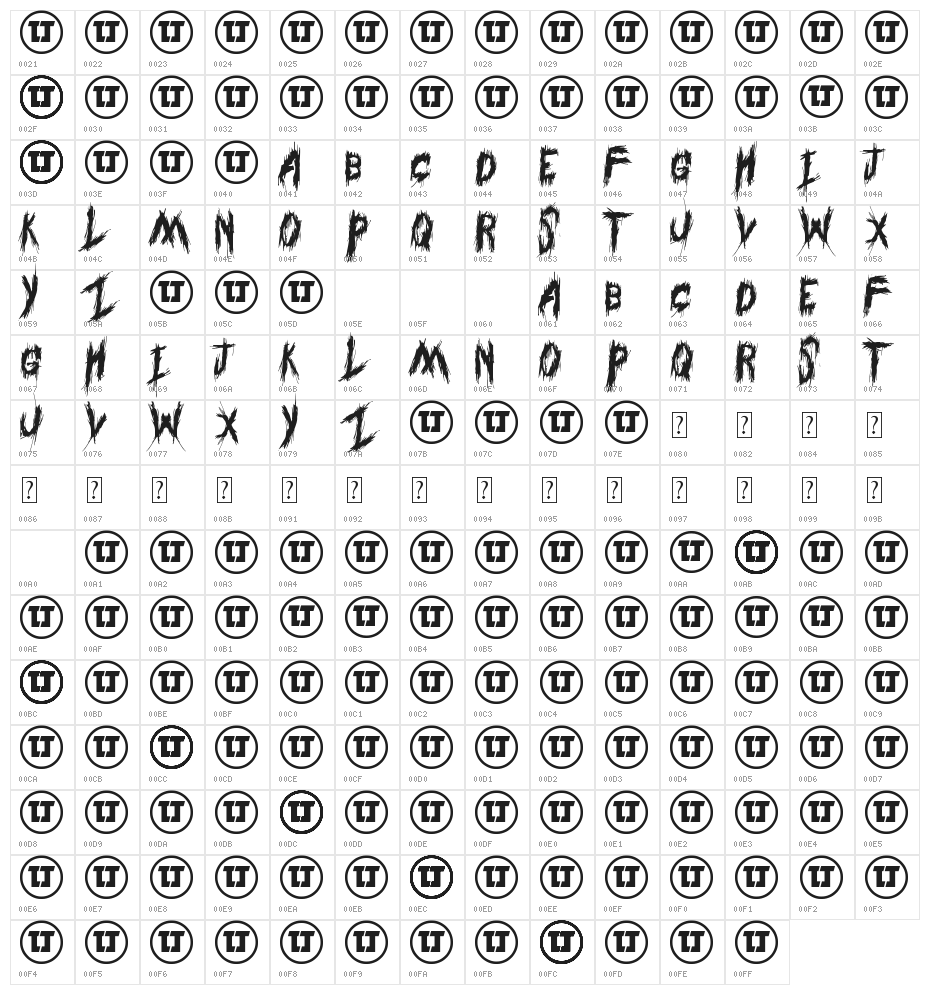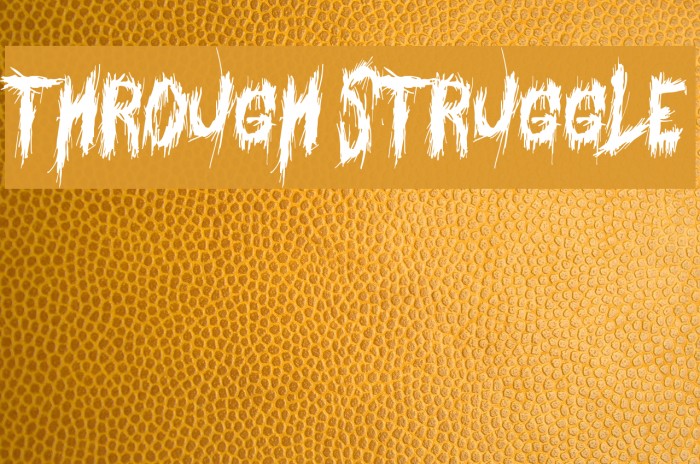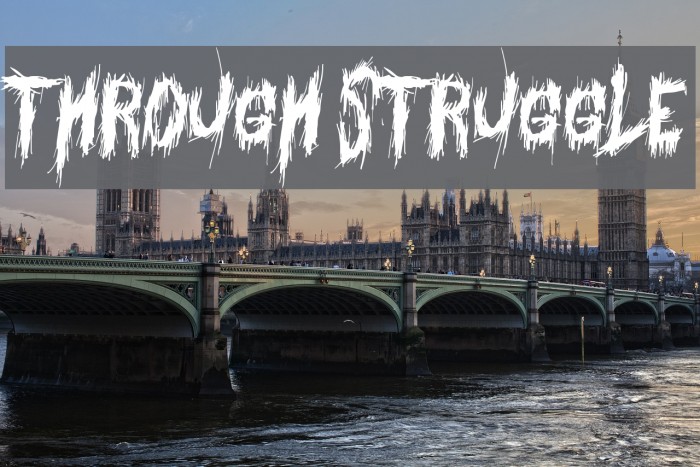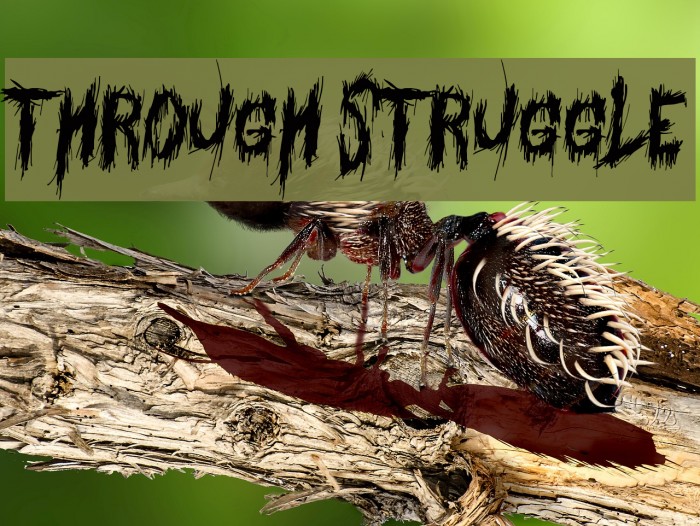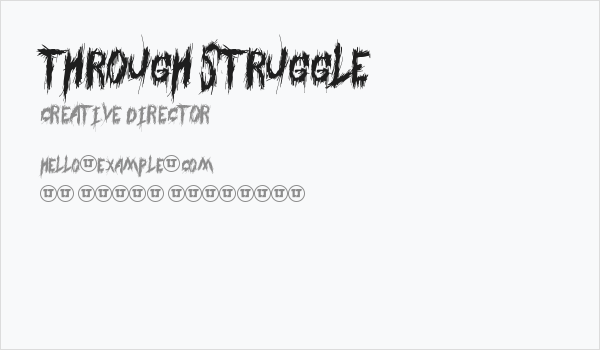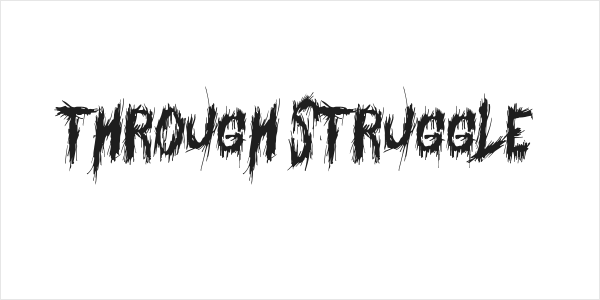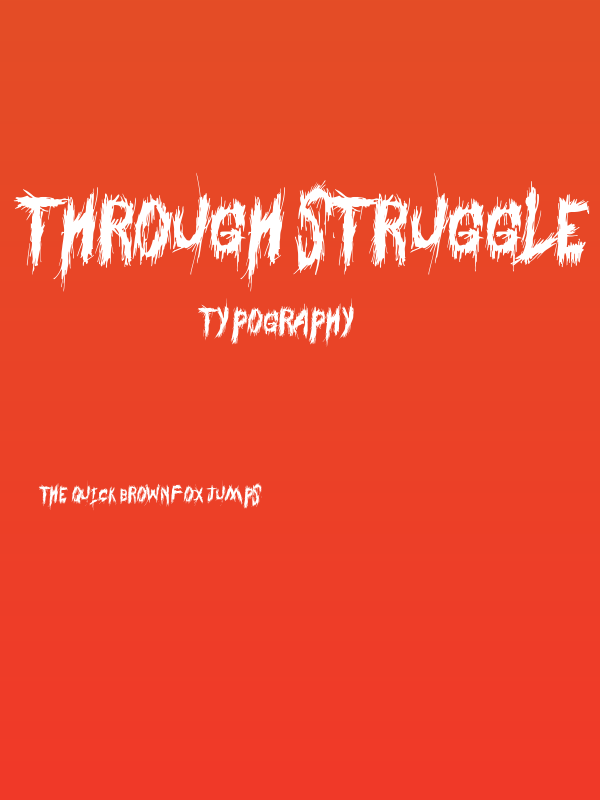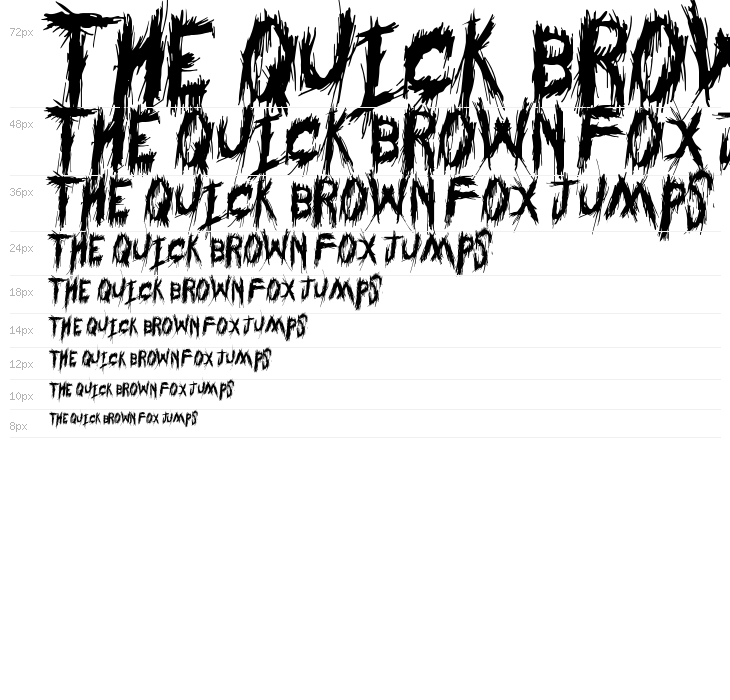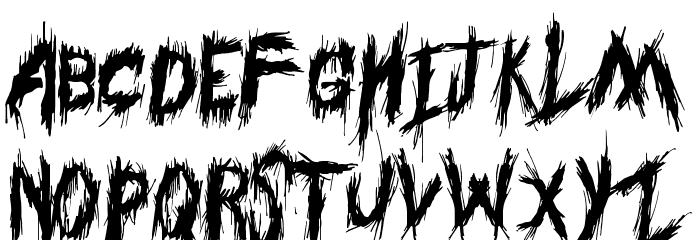
Through Struggle Font
Through Struggle Description
This font features a rugged, distressed style with jagged edges and an aggressive appearance. The characters are bold and dynamic, evoking a sense of chaos and energy. Each letter is uniquely crafted with irregular strokes, giving it a hand-drawn, grunge aesthetic. The font's design is reminiscent of graffiti or horror-themed artwork, making it stand out with its raw and edgy look. It is particularly suitable for projects that require a bold statement or an intense visual impact.
| Proposed Projects | Ideal for horror movie posters, music album covers, edgy branding, and street art-inspired designs. |